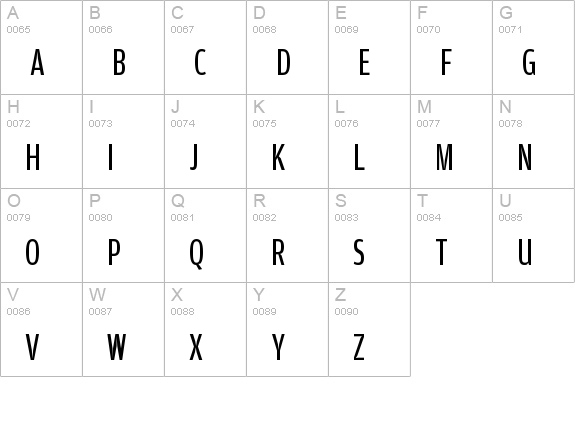
AmplitudeComp-Regular is the standard, neutral variant in the AmplitudeComp typeface family \xE2\x80\x94 well suited to general body text, paragraphs, and standard typographic work.
AmplitudeComp-Regular is a modern and versatile font that is perfect for a wide range of design projects. Its clean lines and balanced proportions make it suitable for both headlines and body text. This font strikes the perfect balance between readability and style, making it a popular choice among designers. The AmplitudeComp-Regular font is a free font that is available to download at FontsMarket.com. Whether you're working on a website, branding materials, or print designs, this font will add a touch of sophistication to your project. Its timeless design will ensure that your text stands out while maintaining a professional appearance. With its sleek and contemporary look, AmplitudeComp-Regular is sure to elevate the overall look of your design. Download this free font today from FontsMarket.com and enhance your projects with its elegant and refined aesthetic.